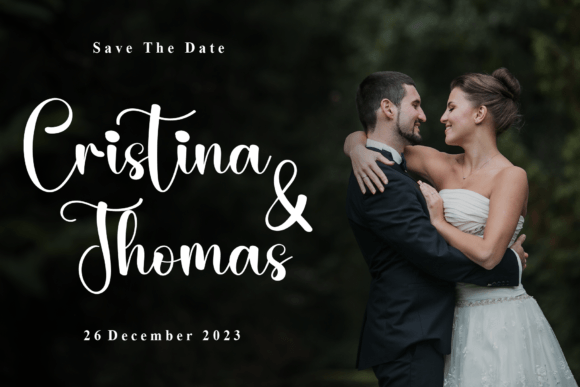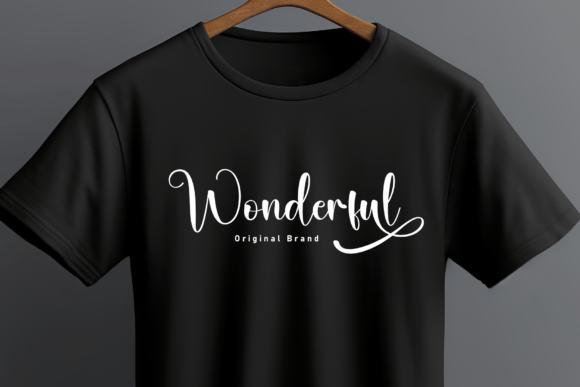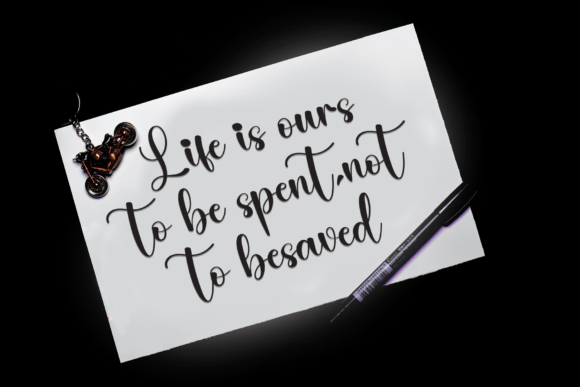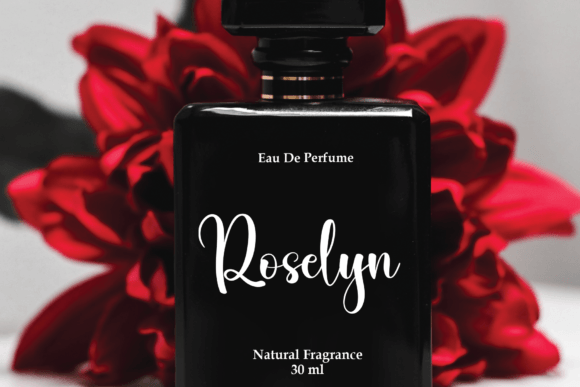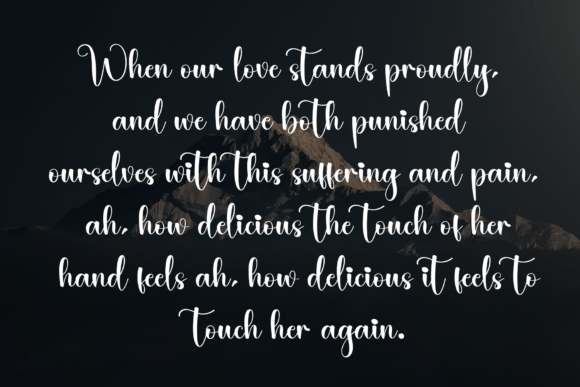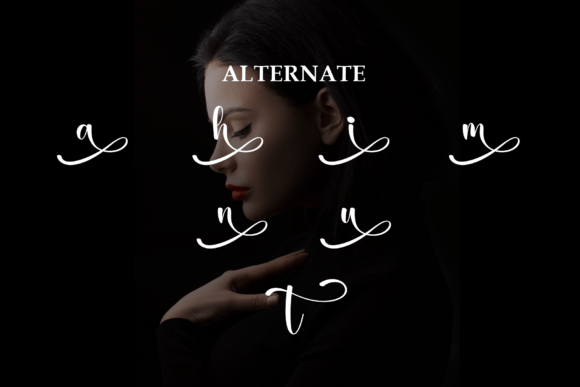
Discover the Charm of Agatha Font: A Sweet and Friendly Handwritten Delight
Are you on the hunt for a font that can add a touch of warmth and personality to your designs? Look no further than Agatha Font, a sweet and friendly handwritten font that’s perfect for a wide range of creative projects. With its natural and unique style, Agatha is incredibly versatile and can be used in a multitude of designs, from rustic and vintage-inspired to modern and playful.
The Story Behind Agatha Font
Agatha Font is a carefully crafted handwritten font that’s designed to evoke a sense of friendliness and approachability. Its creator aimed to develop a font that would be both elegant and informal, making it suitable for a variety of applications, including branding, packaging, and digital media. The result is a font that’s both sweet and sophisticated, with a unique charm that’s sure to capture the hearts of designers and crafters alike.
What Makes Agatha Font So Special?
So, what sets Agatha Font apart from other fonts out there? Here are just a few of its standout features:
- Natural and Unique Style: Agatha Font boasts a distinctly handwritten feel that’s both natural and unique. Its imperfections and quirks give it a sense of character that’s hard to find in more traditional fonts.
- Highly Versatile: Whether you’re working on a rustic wedding invitation or a modern digital product, Agatha Font can adapt to any design style with ease.
- Easy to Read: Despite its handwritten nature, Agatha Font is remarkably legible, making it perfect for body text and longer blocks of content.
- Perfect for Branding and Identity: With its friendly and approachable vibe, Agatha Font is an excellent choice for branding and identity projects, helping to create a lasting impression on your audience.
Endless Design Possibilities with Agatha Font
The only limit to what you can create with Agatha Font is your imagination! Here are just a few ideas to get you started:
- Wedding and Event Stationery: Use Agatha Font to create beautiful wedding invitations, save-the-date cards, and other event stationery that exudes warmth and personality.
- Branding and Packaging: Add a touch of whimsy and charm to your brand’s packaging and marketing materials with Agatha Font.
- Digital Products: Use Agatha Font to create engaging and user-friendly digital products, such as ebooks, workbooks, and online courses.
- Social Media Graphics: Add a personal touch to your social media graphics, such as quote graphics, Instagram stories, and Facebook posts, with Agatha Font.
Tips for Getting the Most Out of Agatha Font
To make the most of Agatha Font, here are a few tips to keep in mind:
- Experiment with Colors: Agatha Font looks great in a variety of colors, so don’t be afraid to experiment and find the perfect hue to match your brand or design style.
- Mix and Match with Other Fonts: Combine Agatha Font with other fonts to create a unique and visually appealing typography scheme.
- Play with Ligatures: Agatha Font comes with a range of ligatures that can add an extra touch of elegance and sophistication to your designs.